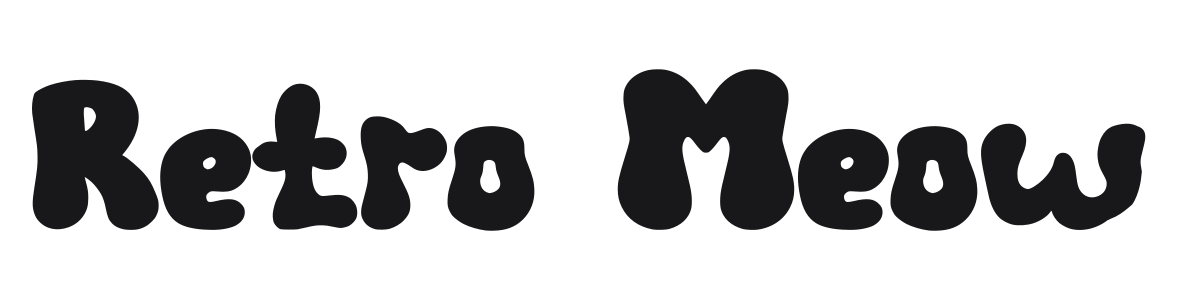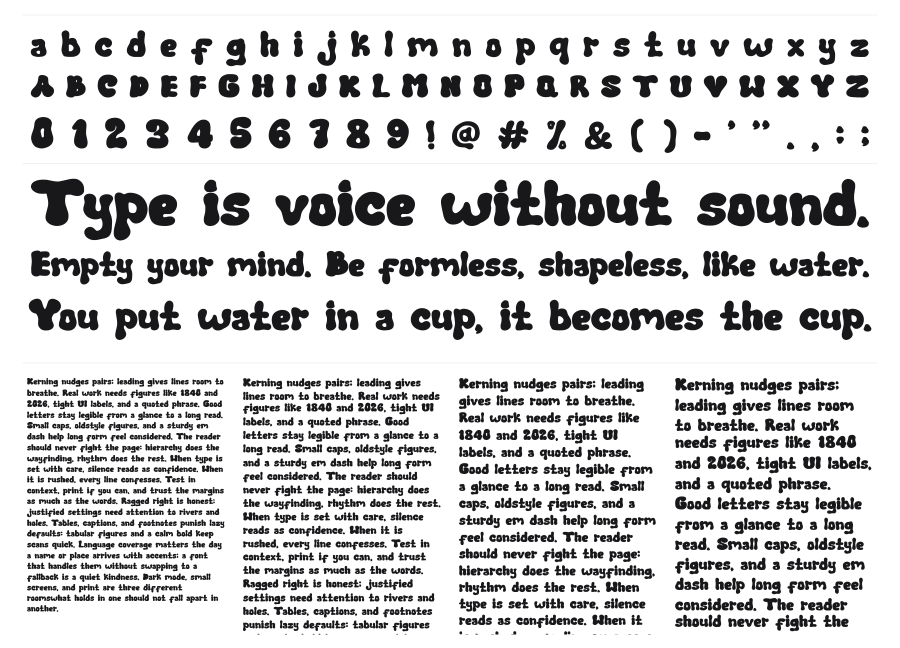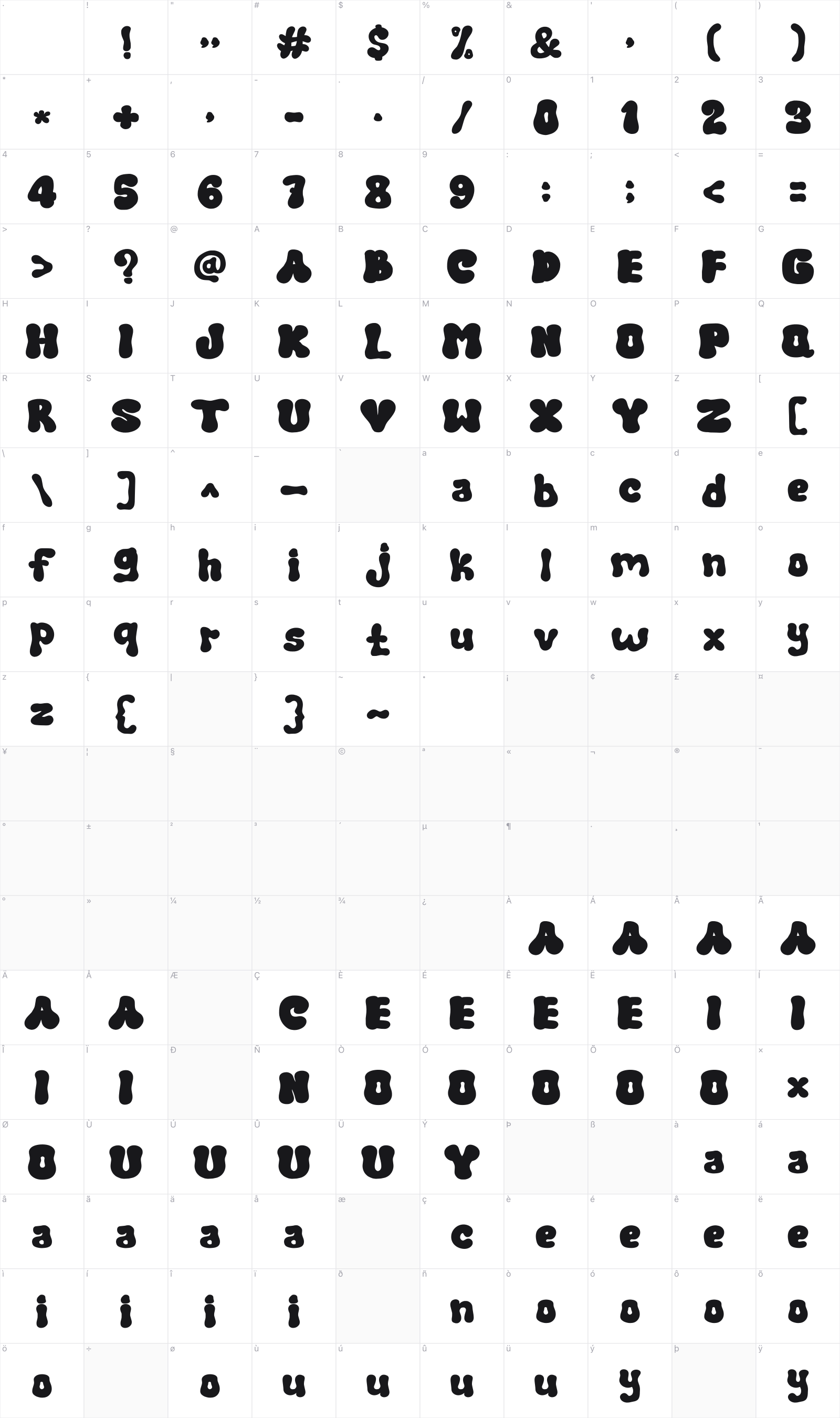
Retro Meow
by Muhammad Afif
Retro MeowLicense is a thick, ultra-rounded display font soaked in 1970s groovy energy. Every stroke is inflated to a near-bubble weight, with organic, swollen curves that feel hand-drawn and loosely playful. It brings instant retro personality to posters, packaging, and any headline that needs to feel fun.